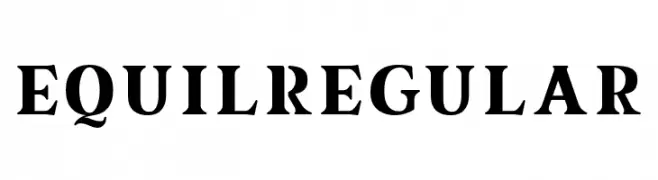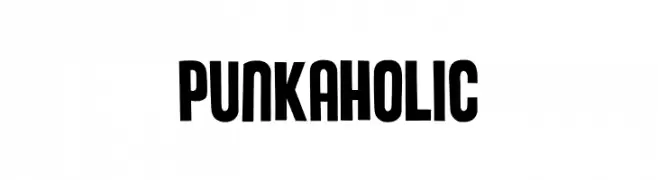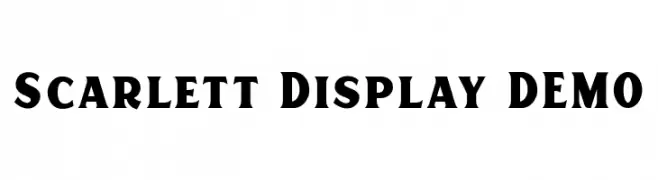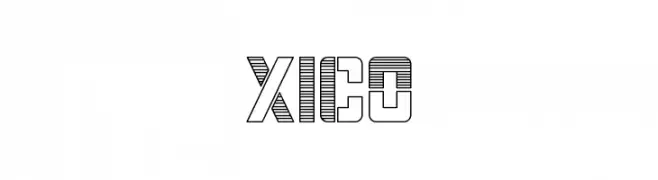
A bold, modern font with block-like characters for impactful designs.
A bold, angular font with a geometric and impactful style.
A bold, outlined font with a modern and impactful style.
A bold, impactful font with a vintage yet modern style, perfect for standout designs.
A bold, serif font with strong strokes and sharp serifs, ideal for impactful designs.
A bold, blocky font with a modern aesthetic, perfect for impactful headlines.
A bold and impactful font with strong, thick strokes and sharp edges.
A bold, condensed font with a modern yet vintage style, perfect for impactful headlines.
A bold, geometric font with a modern and impactful design.
A bold, geometric font with a 3D striped effect, ideal for impactful headlines.